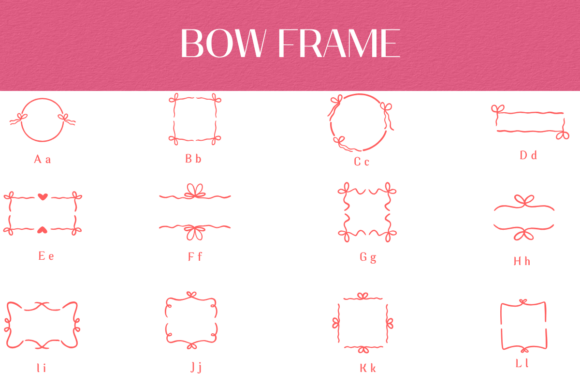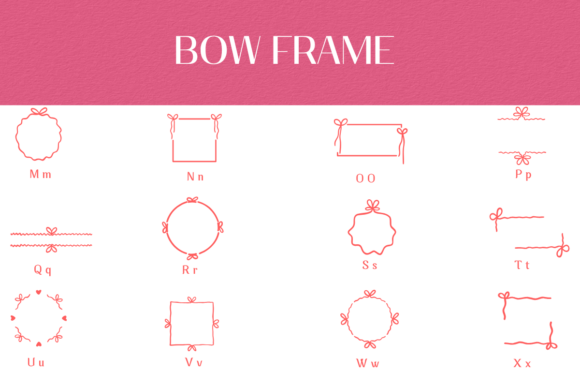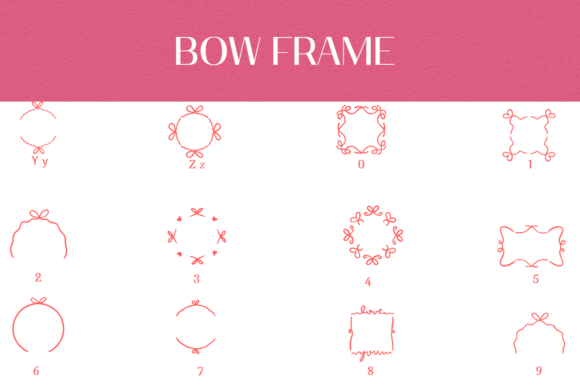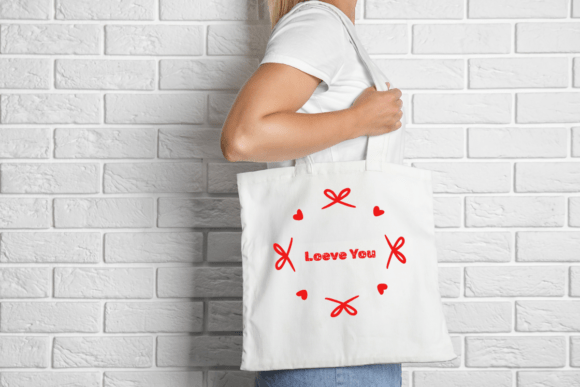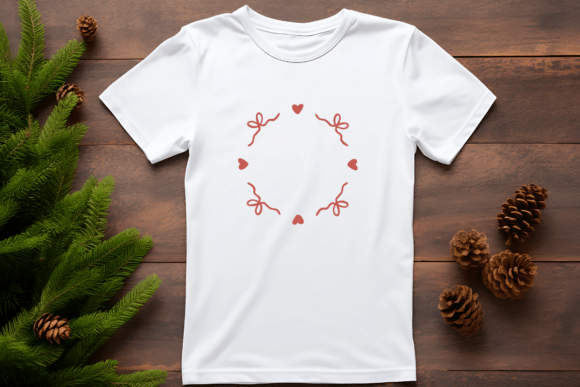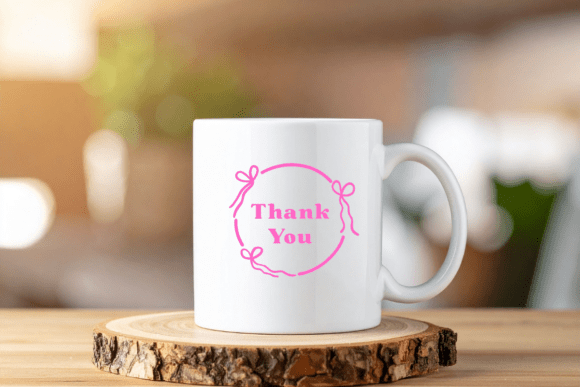
The Power of Cute Typography: Unlocking Creativity with Bow Frame Font
Have you ever been brainstorming a new project, and suddenly a spark of inspiration hits you? Maybe it’s a whimsical idea for a children’s book, a playful logo for a new brand, or a set of custom invitations for a special occasion. Whatever it is, the right font can make all the difference in bringing your vision to life. That’s where the Bow Frame Font comes in – a delightful dingbats font designed to add a touch of sweetness to your creative endeavors.
This charming font is perfect for designers looking to add a playful twist to their projects. With its cute and intricate design elements, Bow Frame Font is sure to captivate your audience and leave a lasting impression. Whether you’re a seasoned pro or just starting out, incorporating Bow Frame Font into your designs will undoubtedly bring a smile to your face and a dash of creativity to your work.
Bow Frame Font Key Features
- Unique Characteristics: Bow Frame Font features a distinctive, hand-drawn design with intricate details and ornaments, making it ideal for creative and artistic projects.
Bow Frame Font Review
I recently had the chance to work with the Bow Frame Font, and I must say it’s a unique and interesting addition to any design project. ✨ The font’s intricate details and ornate design elements make it perfect for creating eye-catching headings and titles.
Here are some of the things that work well with the Bow Frame Font:
- ✨ Uniqueness: The font’s design is unlike anything I’ve seen before, making it a great choice for designers who want to add some personality to their projects.
- ✨ Versatility: The font can be used for a variety of design elements, from headings to icons, making it a great addition to any design kit.
- ✨ High-quality: The font is well-designed and rendered, with smooth lines and crisp details.
- ⚠️ Readability: While the font is visually striking, it can be difficult to read at small sizes or in certain contexts. This may limit its use in body text or other situations where readability is crucial.
- ⚠️ Complexity: The font’s intricate design elements can make it difficult to work with, especially for designers who are not familiar with ornate typography.
Overall, I would say that the Bow Frame Font is a great choice for designers who want to add some flair to their projects. While it may not be suitable for every design scenario, its unique design and versatility make it a valuable addition to any design kit.
The Bow Frame font is ideal for:
- Wedding invitations and decorations.
- Gift cards and packaging.
- Party decorations and banners.